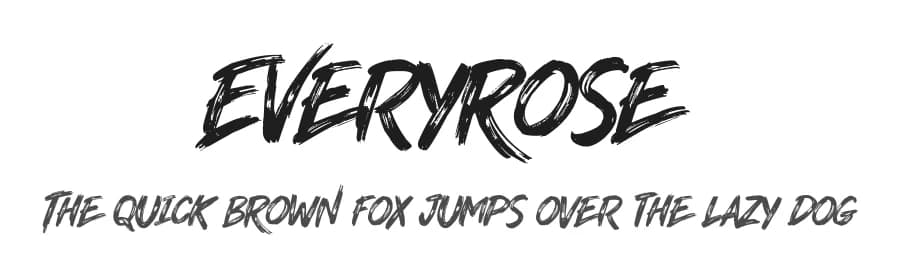
About Everyrose Font
About this font:
Everyrose is the brush type for every trend and every season. The balance of black and white, night and day, beauty and function.
It can go well with most of your presentations - headlines, emotional quotes, art prints, comic strip, tropical vibe templates, movie titles and film intros.
Features: Regular and Slant + Multilingual Support Includes: Standard Glyphs, Numerals and Punctuations
Everyrose Font is a script font that shines as a display or heading face. Pair it with a clean sans-serif or serif font for body text β the contrast creates a clear hierarchy while the two styles stay balanced and easy to read.